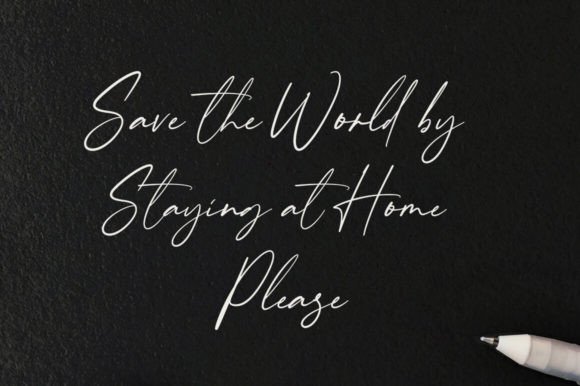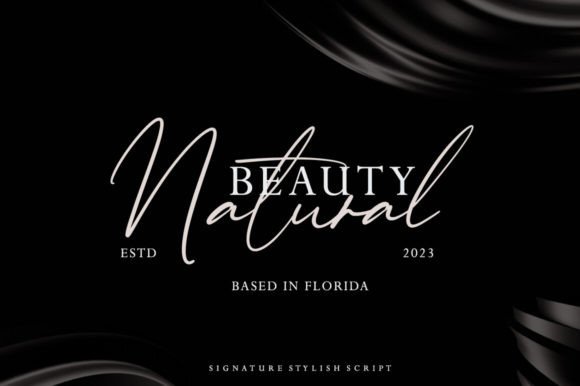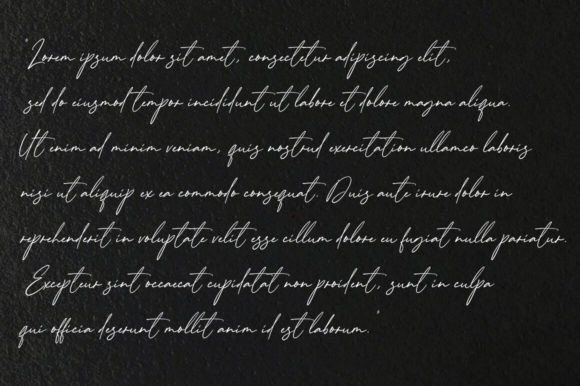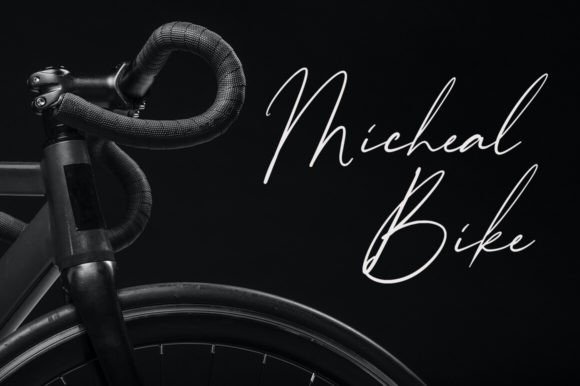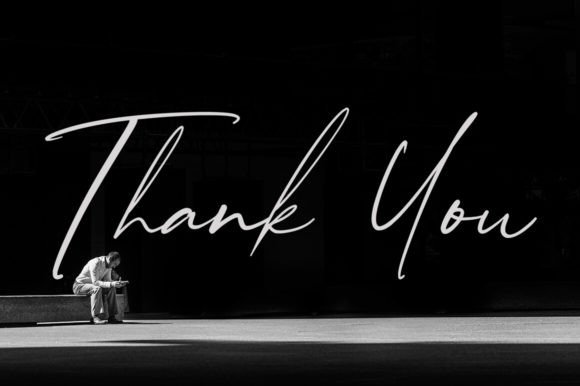
Introducing Handsome Signature Font: Elevate Your Designs with Chic Calligraphy
In the world of typography, a signature font can make all the difference in setting the tone for your brand, design, or creative project. If you’re looking for a luxury script that exudes elegance and modernity, look no further than the Handsome Signature Font. This stunning typeface is perfect for designers and crafters seeking to add a touch of sophistication to their work.
What is Handsome Signature Font?
Handsome Signature is a chic calligraphy font that boasts its own unique style and modern look. With its flowing lines and elegant curves, this luxury script is designed to make a statement. Whether you’re creating a logo, title design, or simply looking for a beautiful font to enhance your typography, Handsome Signature is the perfect choice.
Perfect for Luxury Designs
So, what makes Handsome Signature Font so special? For starters, its modern and elegant design makes it perfect for luxury brands, high-end fashion, and sophisticated designs. The font’s unique style and flair add a touch of glamour to any project, making it ideal for:
- Elegant logos and branding
- Book or movie title designs
- Fashion brand typography
- Magazine and newspaper headers
- Clothes and apparel branding
- Lettering and quote designs
Why Choose Handsome Signature Font?
With so many fonts available, why choose Handsome Signature? Here are just a few reasons why this luxury script stands out from the rest:
- Unique Style: Handsome Signature has its own distinct style that sets it apart from other fonts.
- Elegant and Modern: This font is perfect for designers seeking to create sophisticated and modern designs.
- Versatile: Use Handsome Signature for a wide range of projects, from logos and branding to title designs and typography.
- Easy to Read: Despite its elegant and cursive nature, Handsome Signature is easy to read, making it perfect for body text and headlines.
Tips for Using Handsome Signature Font
To get the most out of Handsome Signature Font, here are a few tips to keep in mind:
- Use it sparingly: Handsome Signature is a statement font, so use it sparingly to make a maximum impact.
- Pair it with a sans-serif font: For body text, pair Handsome Signature with a clean sans-serif font to create a beautiful contrast.
- Experiment with colors: Handsome Signature looks stunning in a range of colors, from metallic gold and silver to rich jewel tones.
If you’re looking for a luxury script that adds a touch of elegance and sophistication to your designs, look no further than Handsome Signature Font. With its unique style, modern look, and versatility, this stunning typeface is perfect for designers and crafters seeking to elevate their work. Whether you’re creating a luxury logo, title design, or simply looking for a beautiful font to enhance your typography, Handsome Signature is the perfect choice.